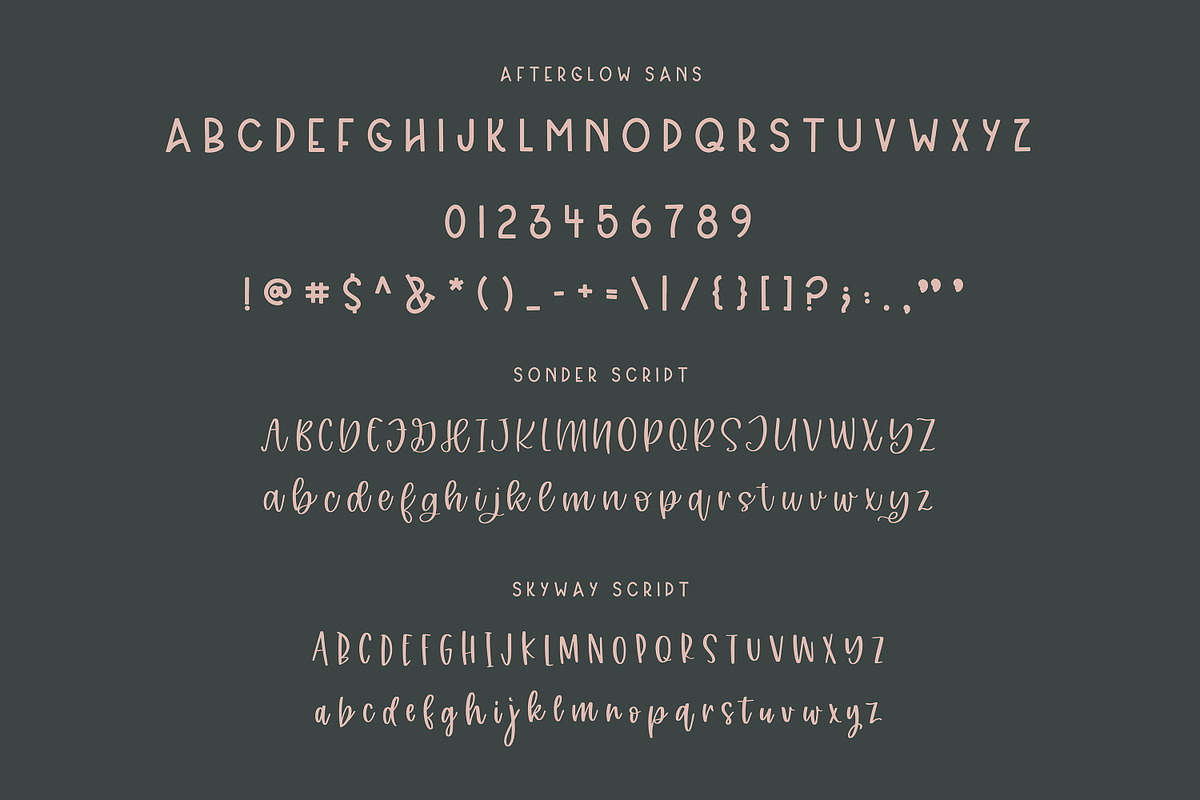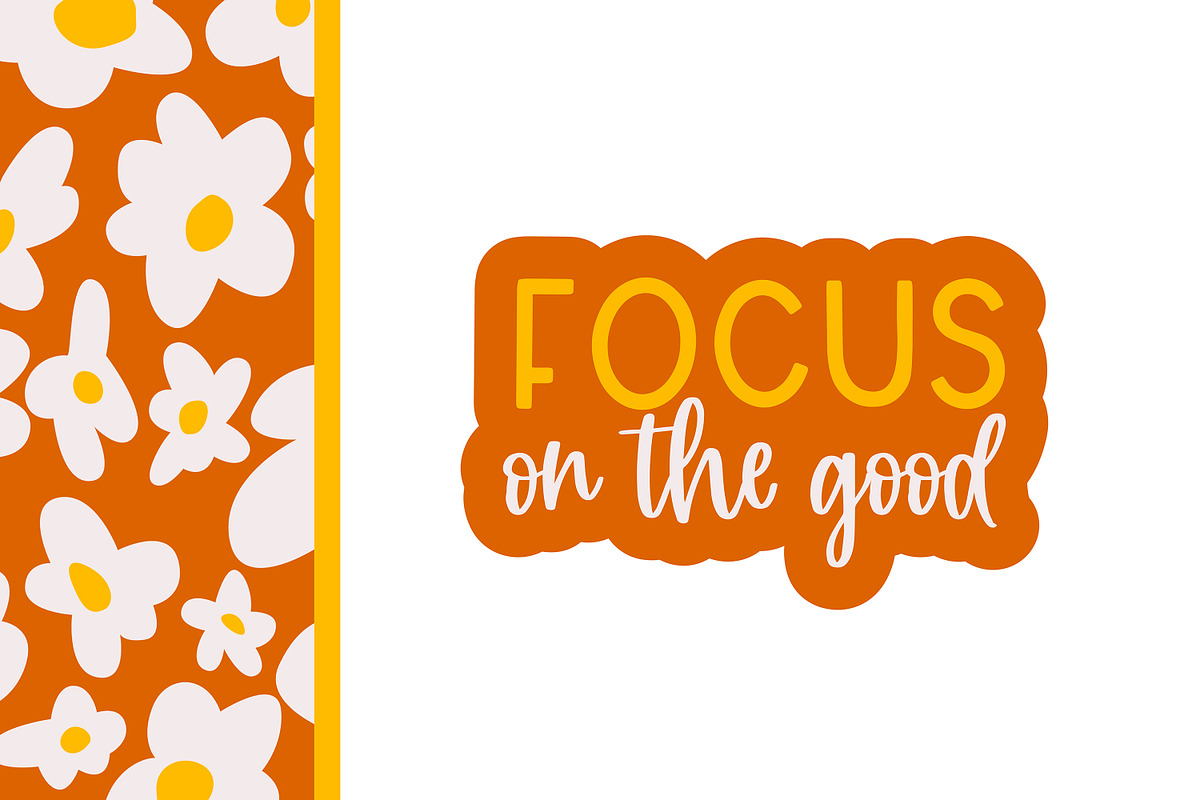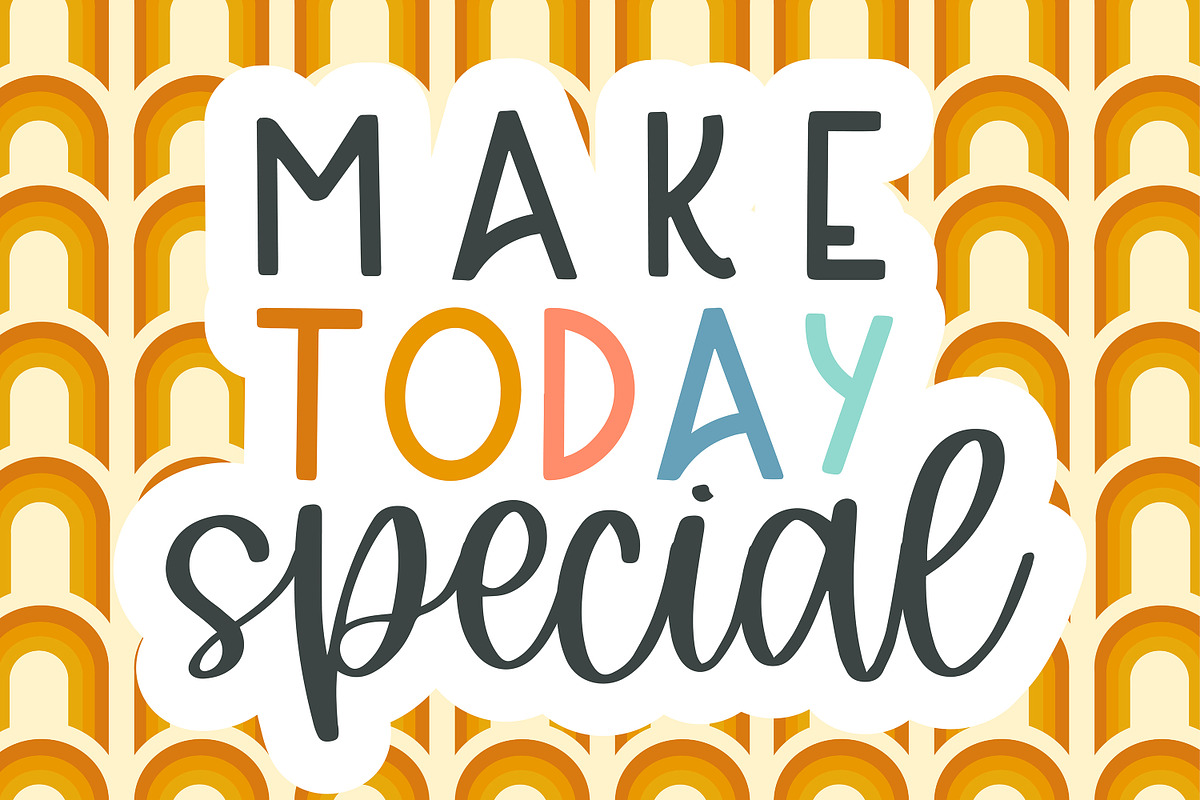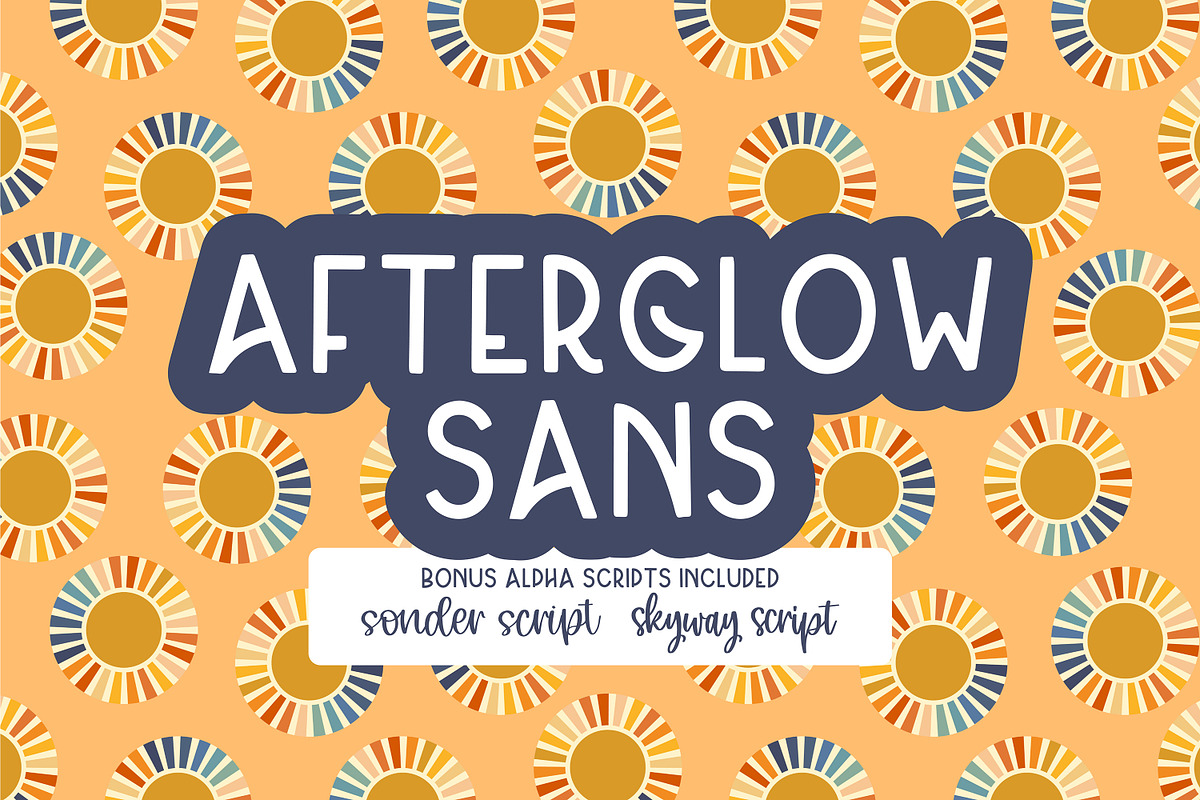
afterglow sans + 2 bonus scripts
afterglow sans is a super fun and quirky all caps sans serif font. it pairs great with script fonts and other styles! skyway script is a handwritten quick note type font. it includes only upper and lowercase letters. sonder script is a bit fancier, more elegant that also only includes upper and lowercase letters.